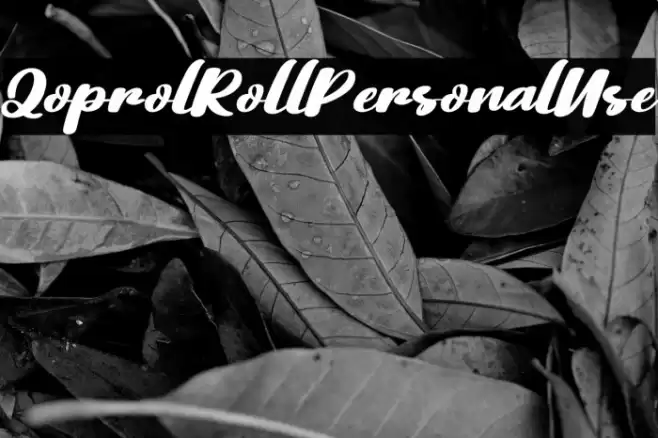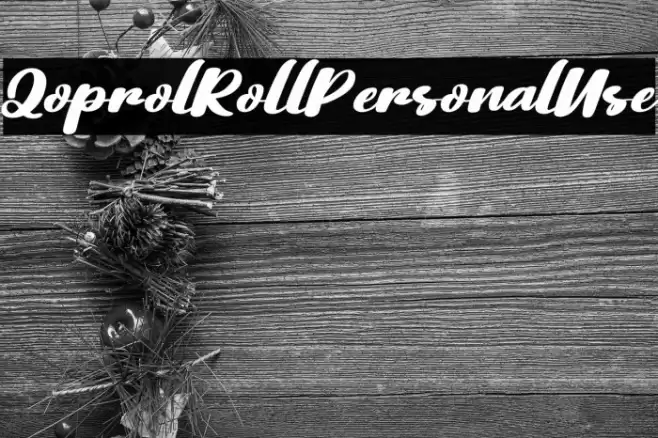
QoprolRollPersonalUse Font
QoprolRollPersonalUse Description
This font exhibits a bold and dynamic script style, characterized by its flowing and connected letterforms. The uppercase letters are particularly striking, with a strong presence and a slight slant that adds to the overall fluidity. The lowercase letters maintain a consistent style, with smooth curves and elegant loops. The font's design is cohesive, with each character seamlessly transitioning into the next, creating a sense of movement and rhythm. The bold weight of the font enhances its visibility and impact, making it suitable for attention-grabbing headlines or branding materials. The absence of serifs and the uniform stroke width contribute to a modern and clean aesthetic, while the script style adds a touch of elegance and sophistication.
A bold, dynamic script font with flowing, connected letterforms and a modern aesthetic from Uncategorized fonts.
- Proposed Projects: Ideal for branding, logos, invitations, and headlines where a touch of elegance and boldness is desired.
- Use Case: Headlines, Logos, Invitations